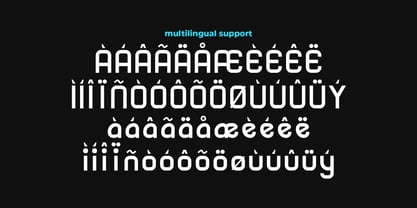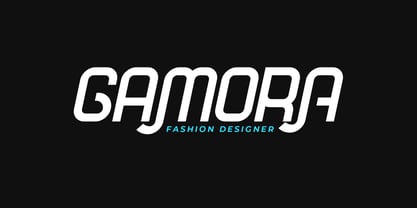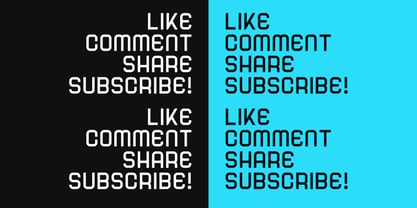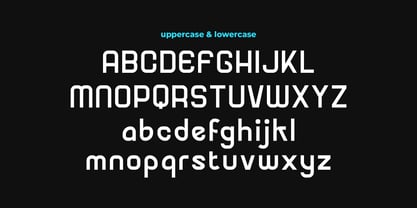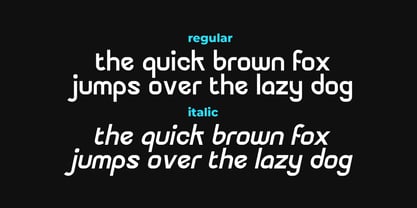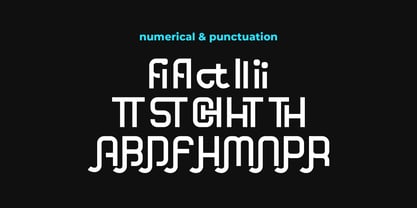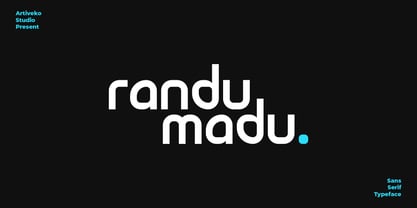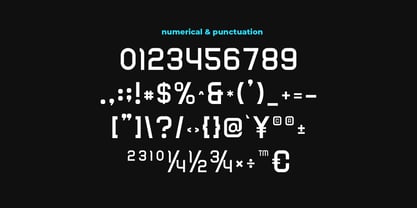
Randu Madu
by Artiveko
The Randu Madu Font Family was designed by Iwan Alwan and published by Artiveko. Randu Madu contains 2 styles and family package options. More about this family
Randu Madu is a creative sans serif font designed with a unique and modern flair. Featuring smooth curves and stylish letterforms, this typeface is perfect for branding, logos, packaging, and editorial design. With multilingual support, ligatures, and alternates, Randu Madu offers versatility and originality, making it an excellent choice for projects that require a fresh, distinctive, and professional look.
Designers: Iwan Alwan
Foundry: Artiveko